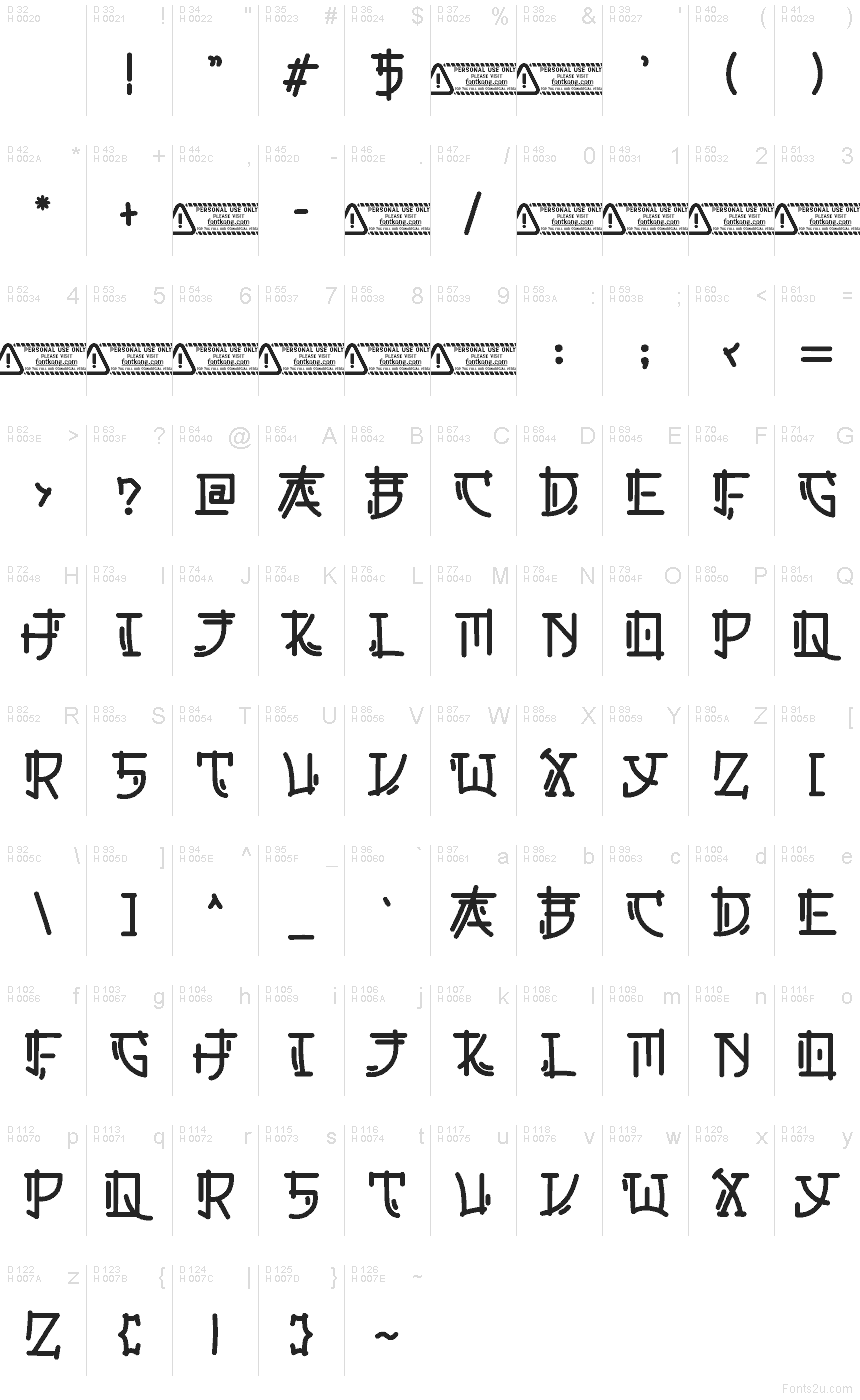
Chinese New Year font by Kong Font is a free decorative Chinese-style typeface that captures the energy of festival banners and paper lanterns. Each letter is built from bold, brush-like strokes with squared corners and cut-out gaps, echoing calligraphy while staying clean and readable in Latin text. The rhythm feels celebratory and a bit theatrical, so even a short word looks like it’s part of a New Year parade.
Using Chinese New Year font, you can instantly set the mood for Lunar New Year posters, restaurant branding, food packaging, party invitations, social media graphics, and event signage. This free font shines in large titles where its angular shapes and playful spacing can breathe. Pair it with a simple sans serif for body copy and keep the Chinese New Year lettering for headlines and logos to maintain impact without visual clutter.